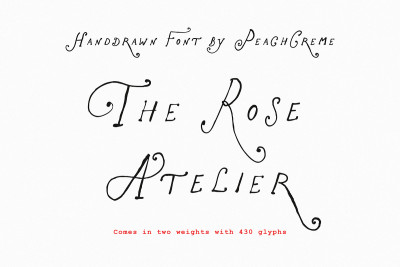
The Rose Atelier// Hand drawn Font
The Rose Atelier// Hand drawn brings a confident, polished presence to any design, from business materials to creative campaigns.